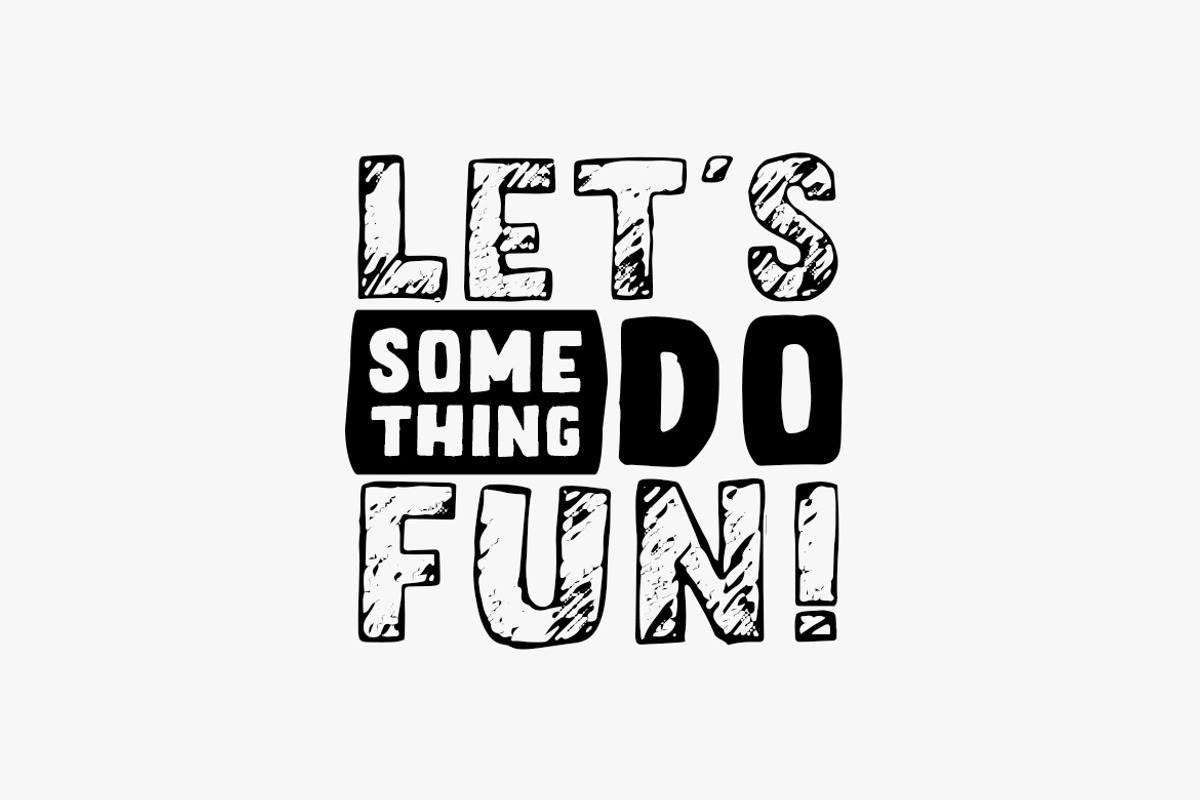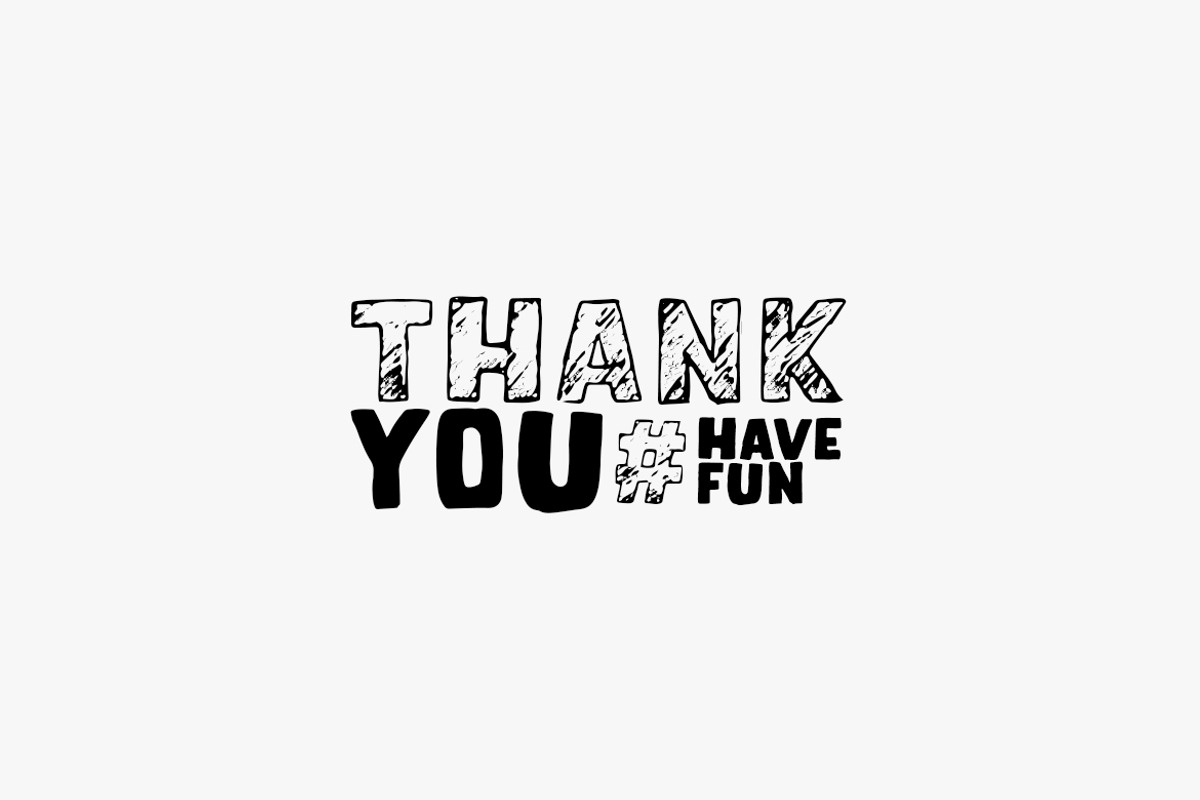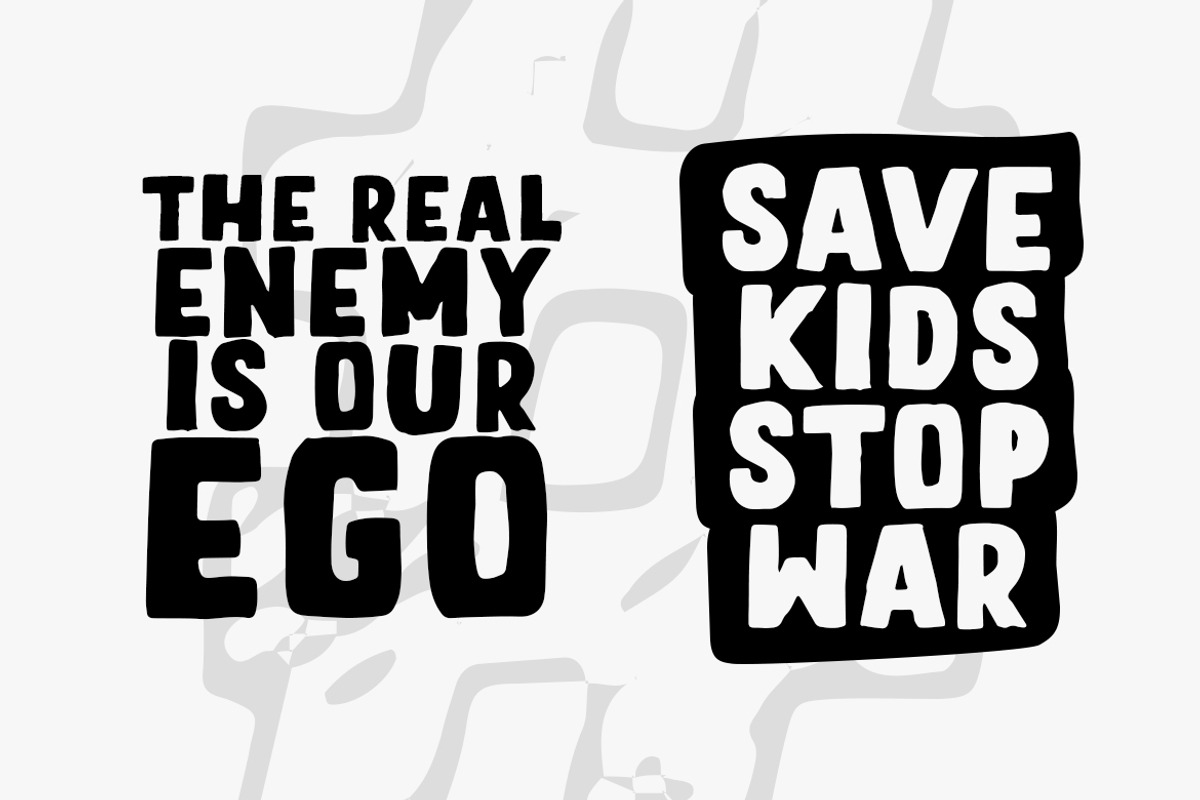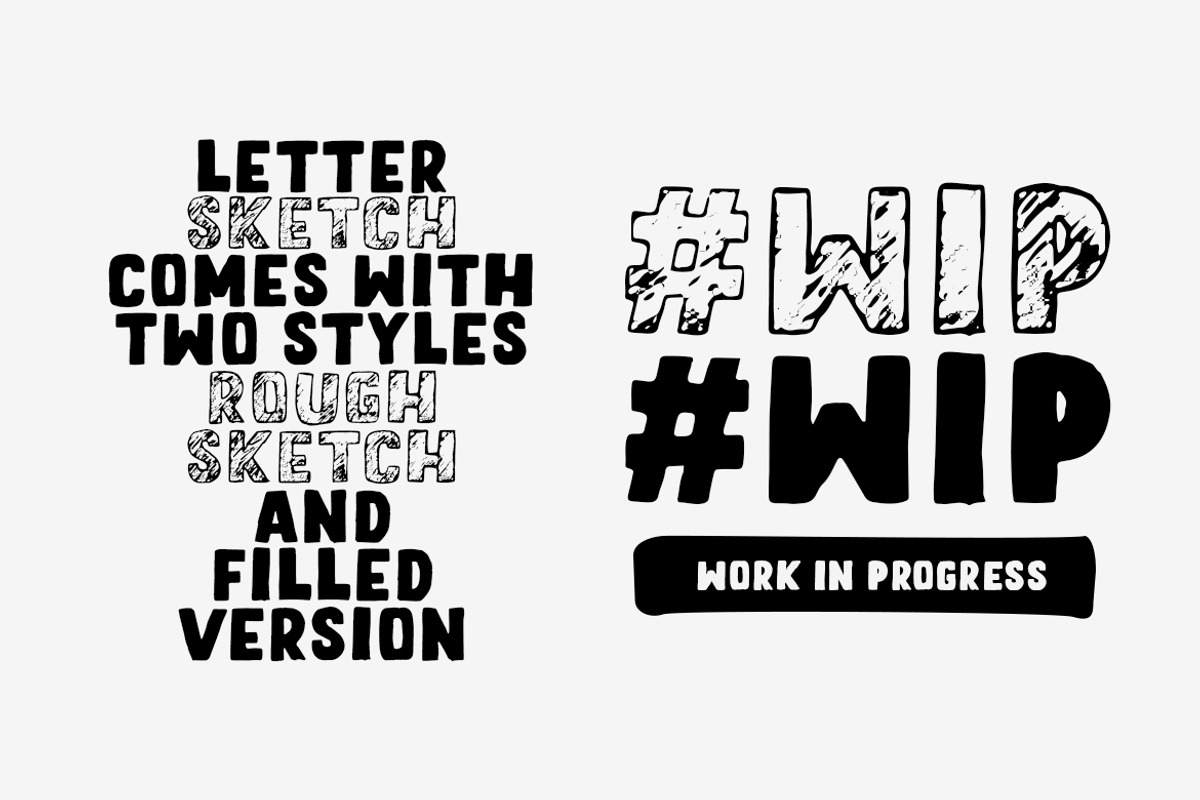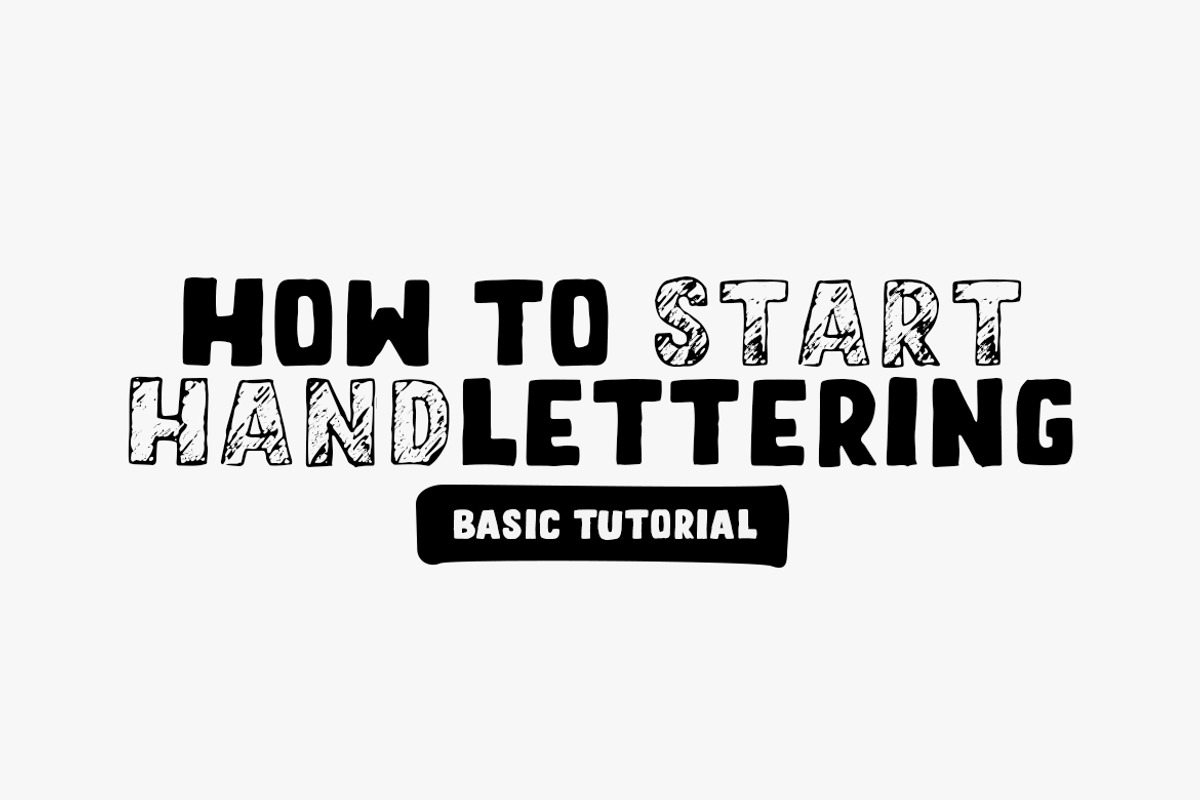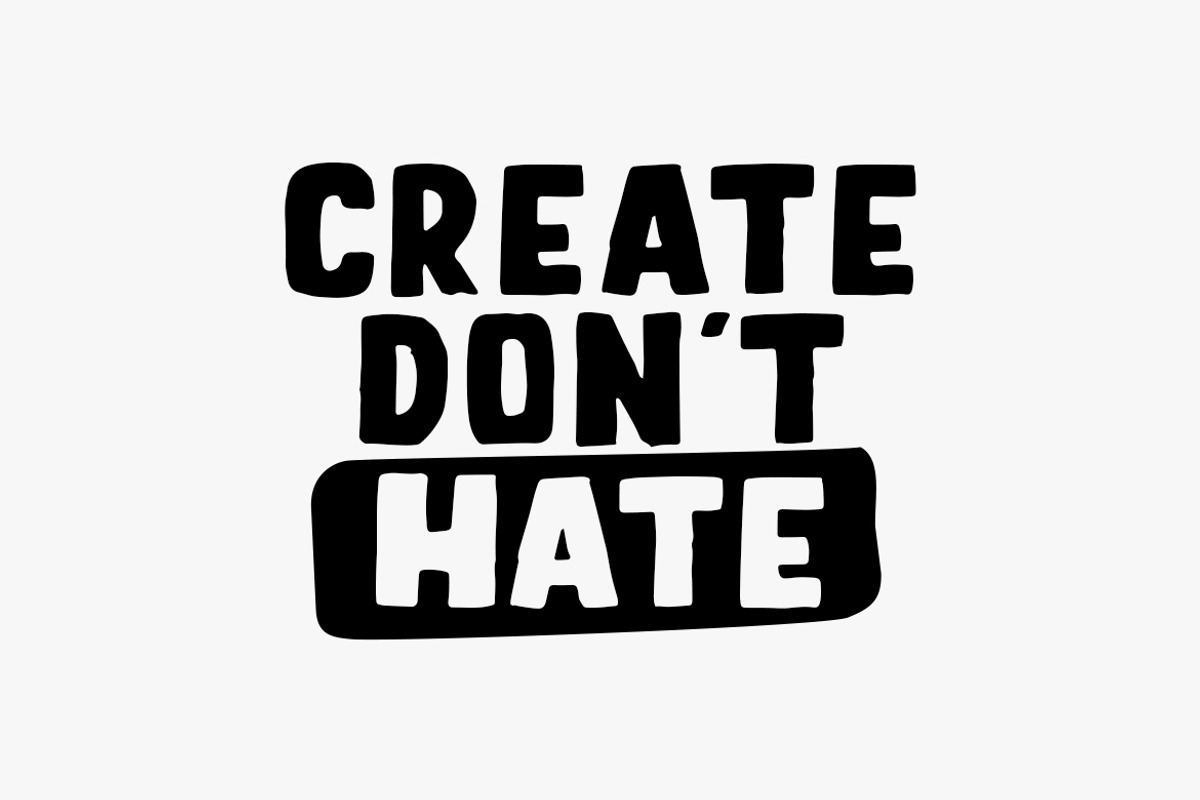
Letter Sketch - Hand Drawn Typeface
This fun typeface is great for quote, tagline, or headline. Letter Sketch is all caps hand drawn font with two style, rough sketch and filled version. It's have natural drawing feels in each characters and give personal touch to your projects.
1. Letter Sketch Regular : a funky rough pencil sketch font
2. Letter Sketch Bold : the filled version of Letter Sketch Regular
Letter Sketch - Hand Drawn Typeface by Motokiwo fits naturally into Branding, posters, packaging, typography.